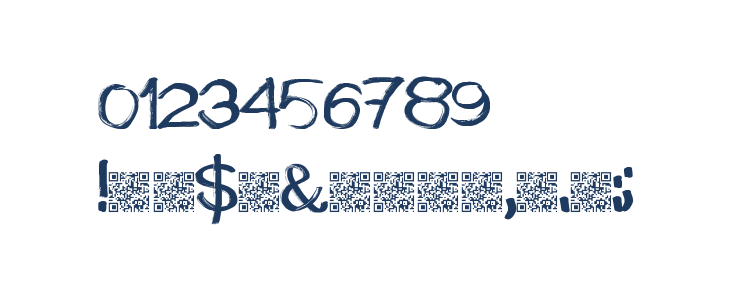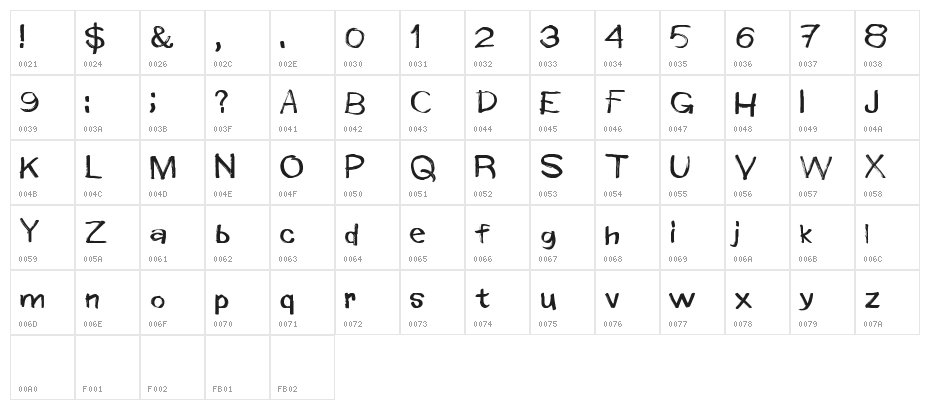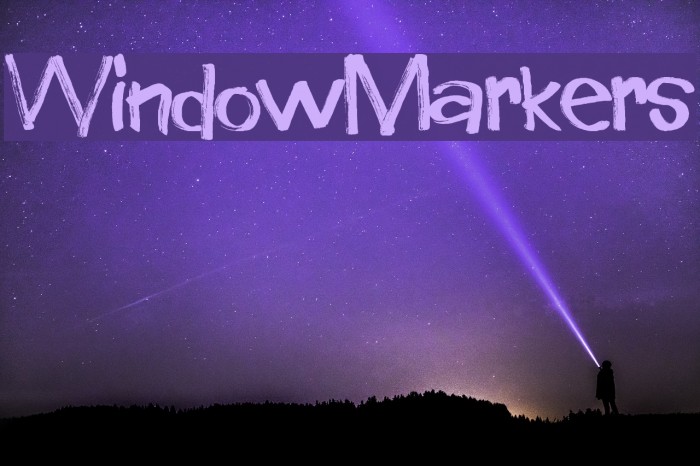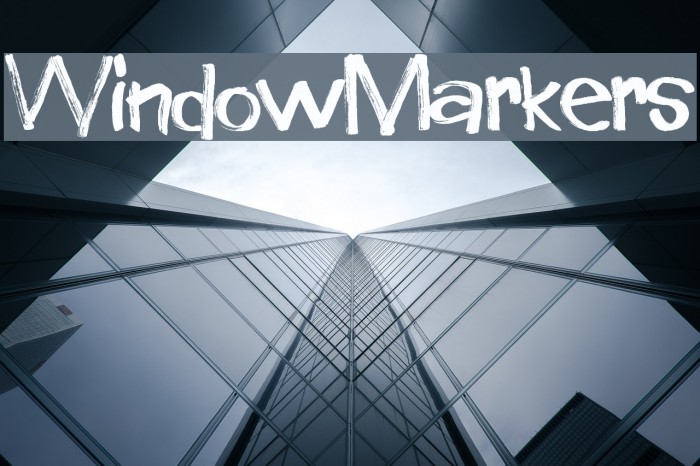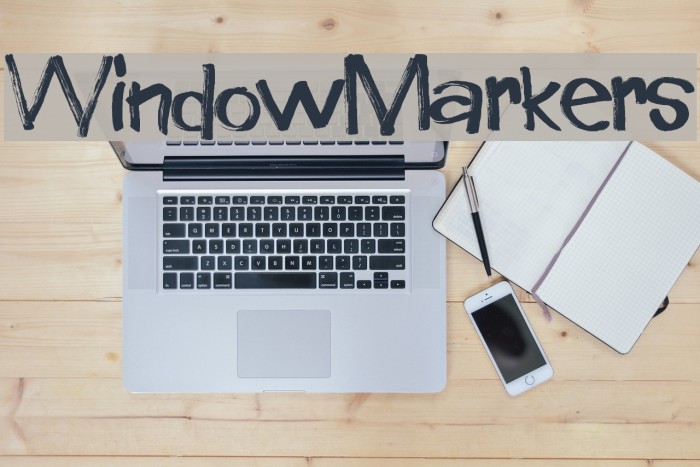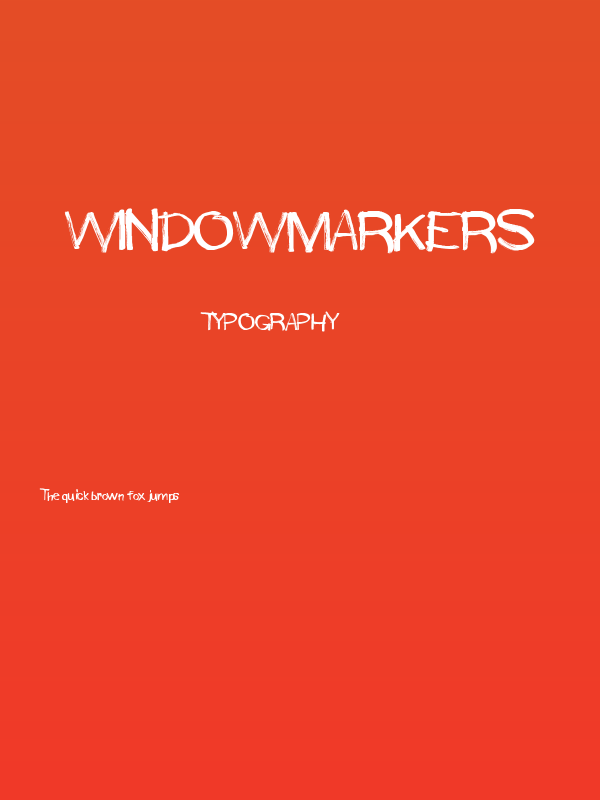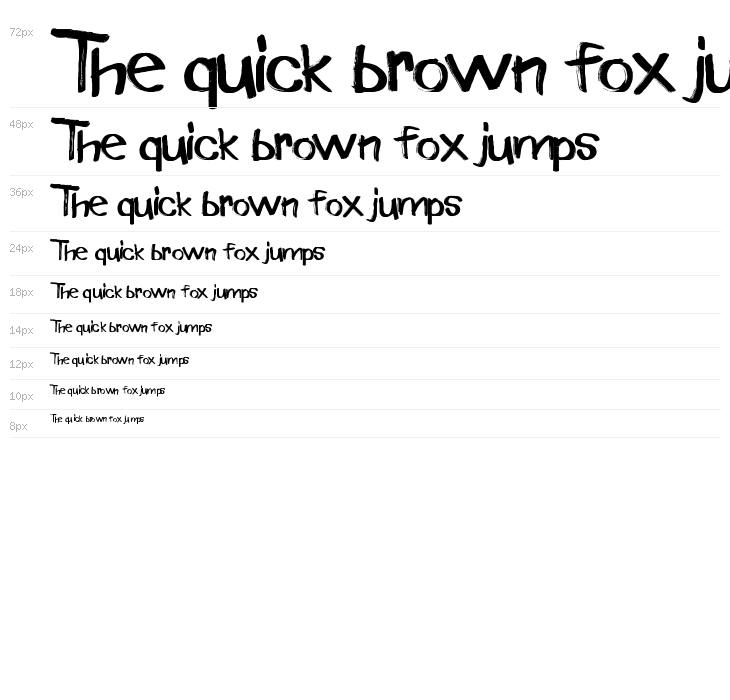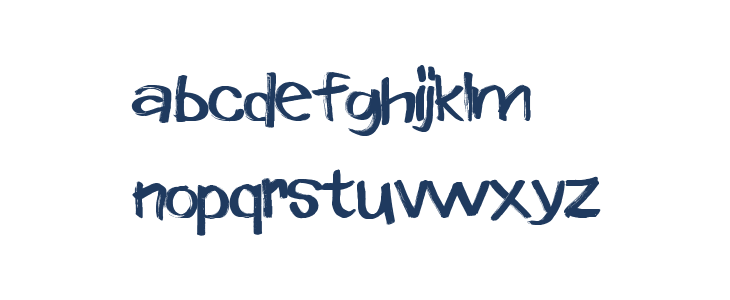
WindowMarkers Font
WindowMarkers Description
This font features a bold, hand-drawn style with a brush-like texture, giving it a dynamic and artistic appearance. The characters are slightly irregular, adding a sense of spontaneity and creativity. The uppercase and lowercase letters maintain a consistent style, with rounded edges and varying stroke widths that create a lively and informal look. The numbers and special characters follow the same aesthetic, ensuring a cohesive design throughout. This font is perfect for projects that require a personal touch or a creative flair.
| Overall Style | Artistic, Creative |
| Proposed Projects | Ideal for posters, artistic projects, branding, and creative designs that require a personal touch. |